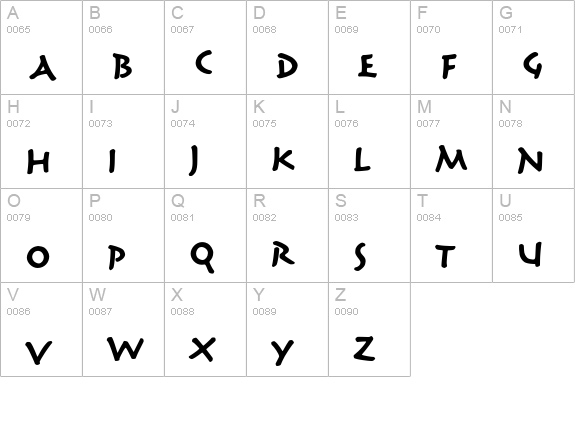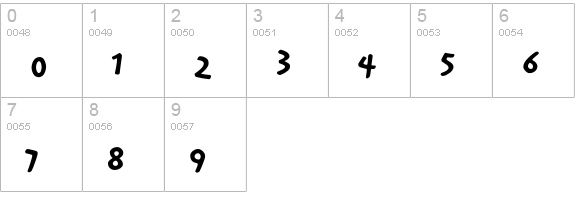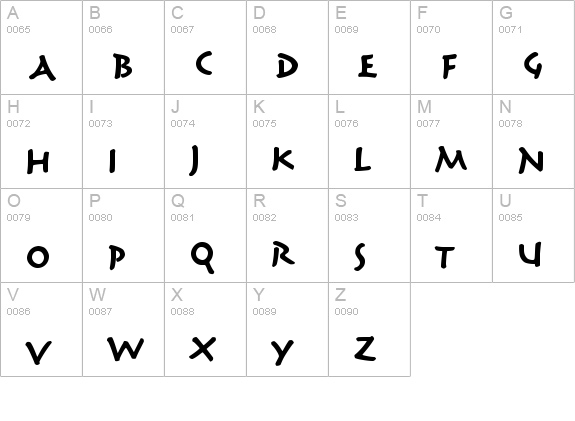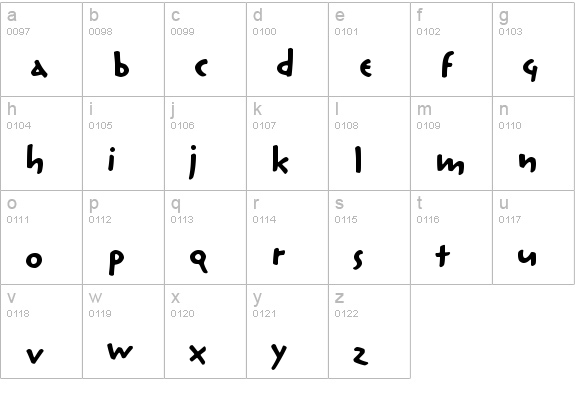
Reliq Std Bold ExtraActive is a strong, high-contrast variant in the Reliq typeface family \xE2\x80\x94 well suited to headlines, attention-grabbing titles, and strong calls-to-action.
Reliq Std Bold ExtraActive font is a striking display typeface that exudes boldness and energy. Designed with a strong and robust aesthetic, this font is perfect for making a powerful statement in your designs. Its thick and expressive letterforms command attention and create a sense of authority. This font is ideal for headlines, titles, and any design that requires a strong and impactful typographic treatment. Whether it's for a poster, logo, or branding project, Reliq Std Bold ExtraActive font will give your design a distinctive and memorable look. What makes this font even more impressive is that it is available for free download at FontsMarket.com. Yes, you read that right – freely available! You can now elevate your designs without having to worry about any additional costs. So why wait? Download Reliq Std Bold ExtraActive font today and take your designs to the next level. With its bold and energetic character, this font is sure to make a lasting impression and captivate your audience. Don't miss out on this amazing opportunity to enhance your designs with a font that is both powerful and free!